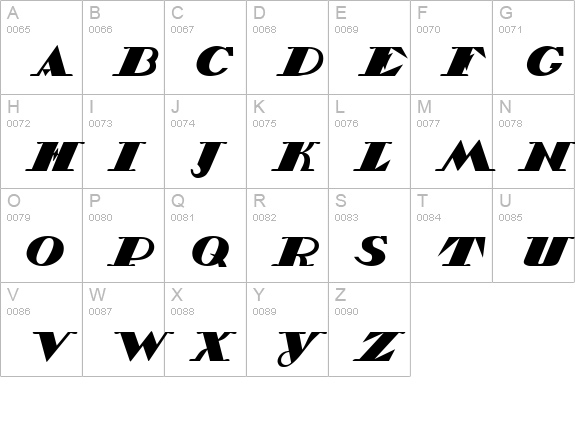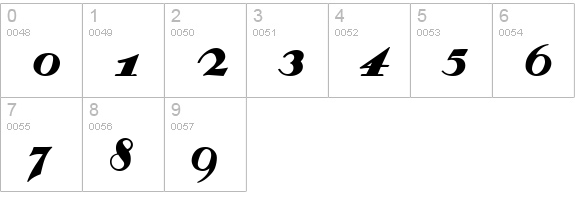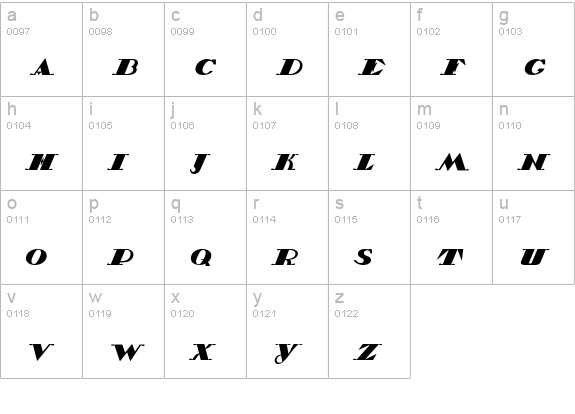
Belukha1 Font Details
Belukha1 is a stunning and versatile font that exudes elegance and sophistication. With its sleek and modern design, this font is perfect for a wide range of design projects, from branding to editorial design. The clean lines and sharp edges of Belukha1 make it a great choice for creating impactful and eye-catching visuals. What sets Belukha1 apart is not only its aesthetic appeal but also the fact that it is available for free download. That's right - you can get your hands on this beautiful font without spending a dime! Simply head over to FontsMarket.com to access this amazing font and take your designs to the next level. Whether you're working on a logo, website, poster, or any other design project, Belukha1 is sure to make a strong impression. Download it today and start creating stunning designs that stand out from the crowd.